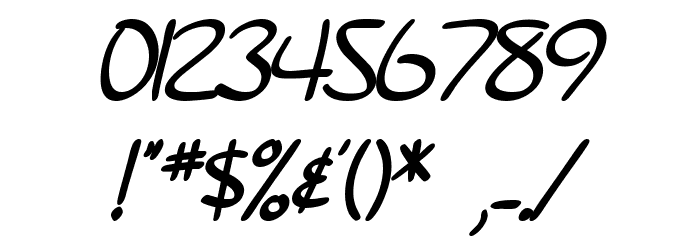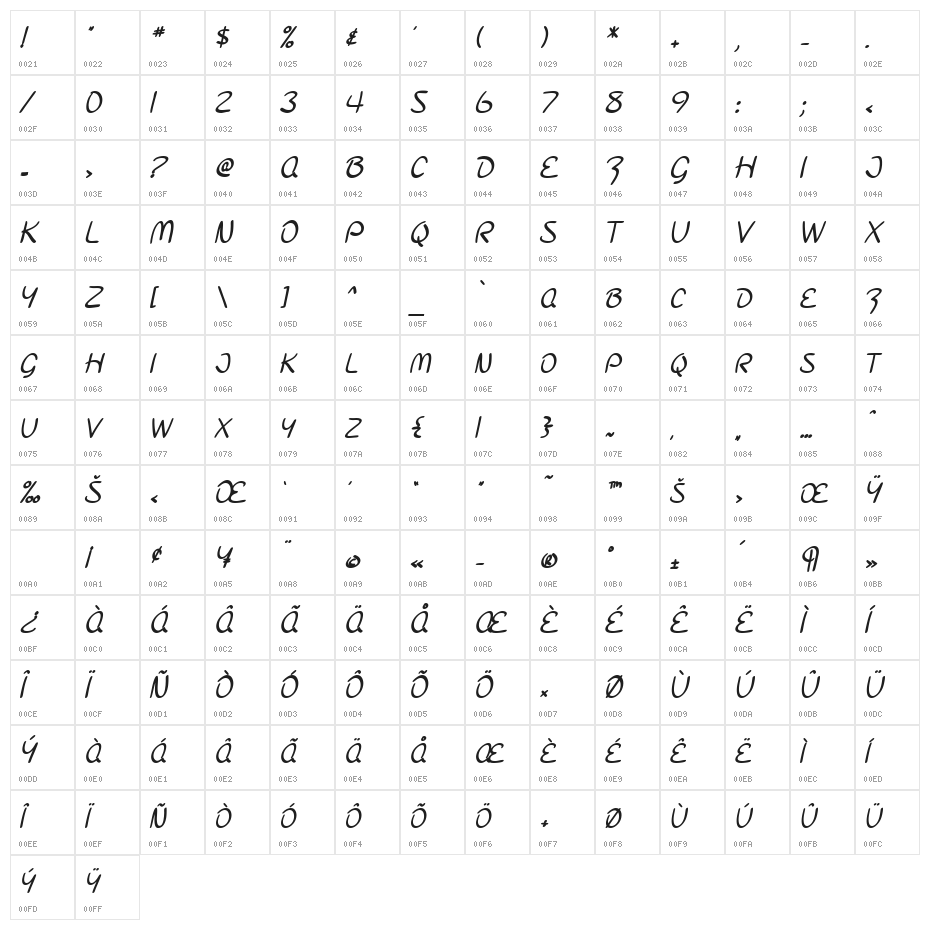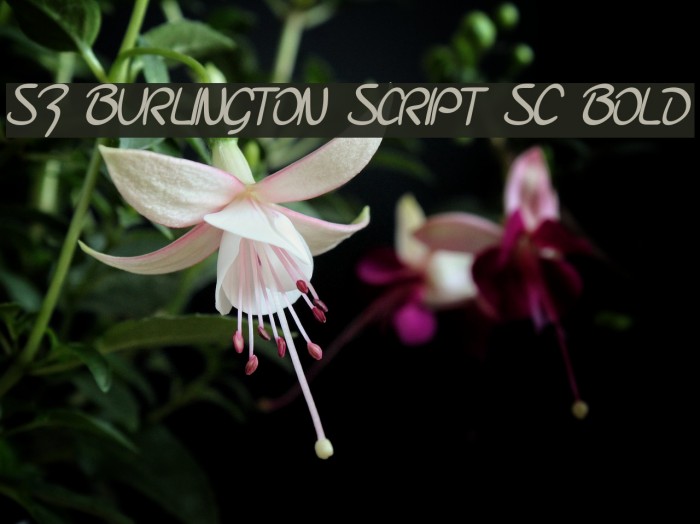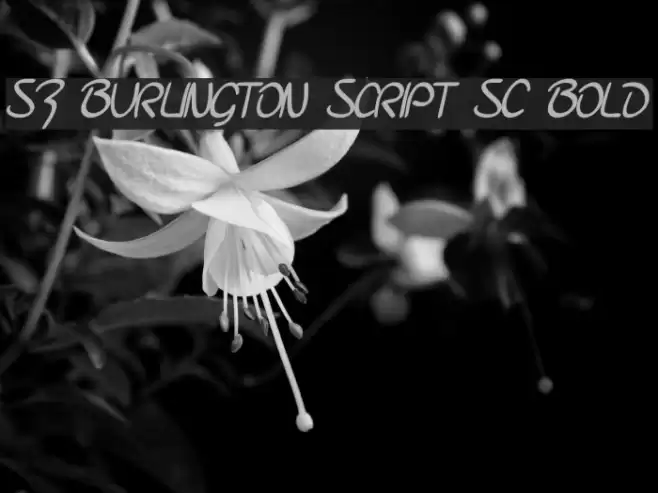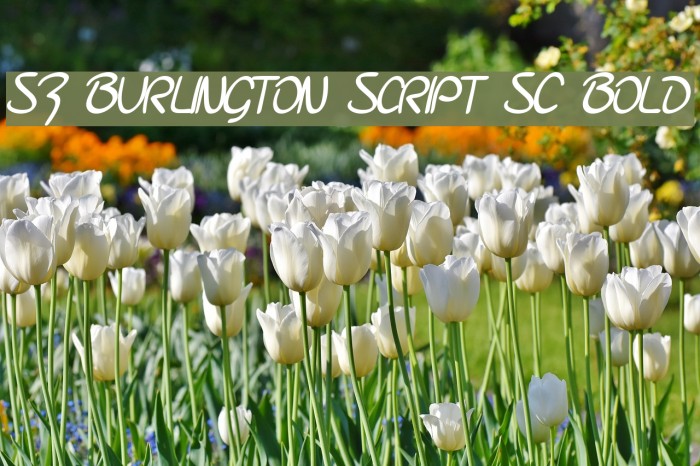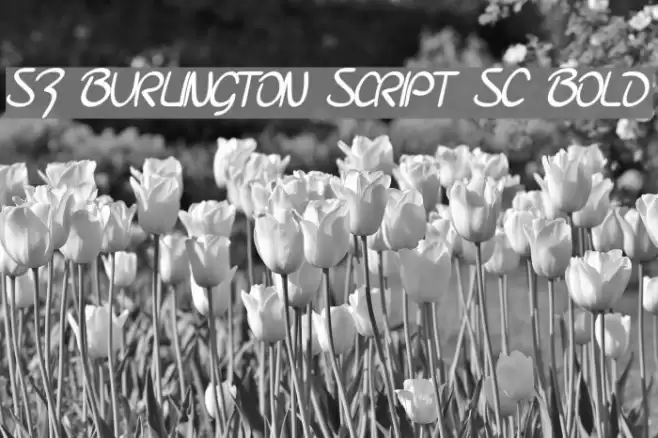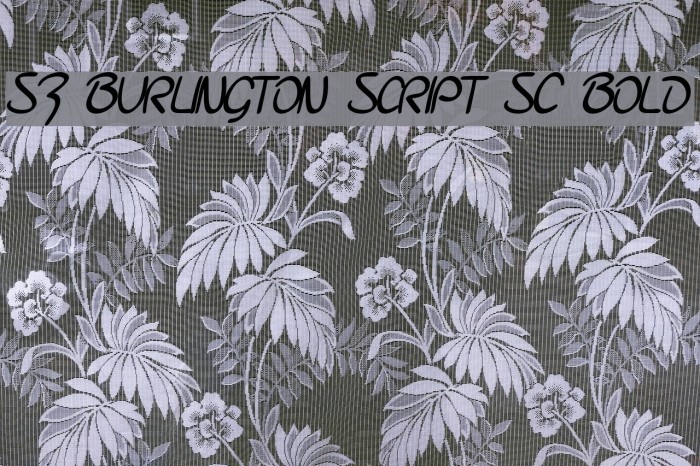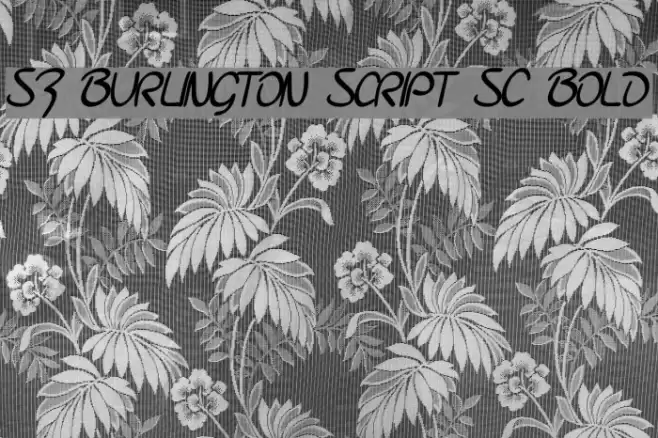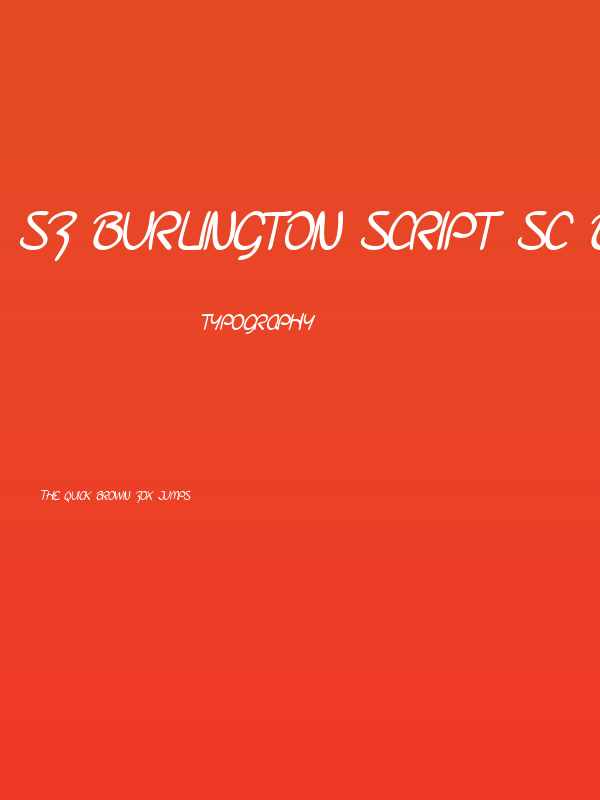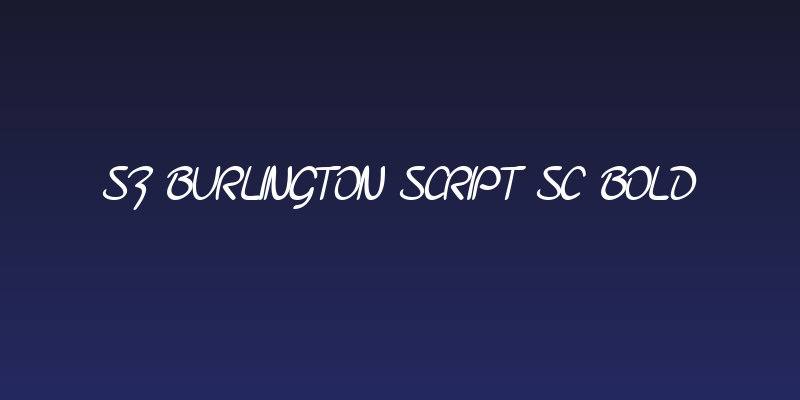
SF Burlington Script SC Bold Font
SF Burlington Script SC Bold Description
This font exudes a lively and energetic script style, characterized by its bold and flowing letterforms. The uppercase and lowercase letters are designed with a consistent slant, giving a sense of motion and fluidity. The strokes are thick and rounded, contributing to its bold appearance, while maintaining a smooth and connected flow. The numerals and special characters are crafted to match the overall script style, ensuring uniformity across all characters. This font is ideal for projects that require a personal and dynamic touch, such as invitations, greeting cards, or branding materials.
| Proposed Projects | Ideal for invitations, greeting cards, branding, and dynamic design projects. |